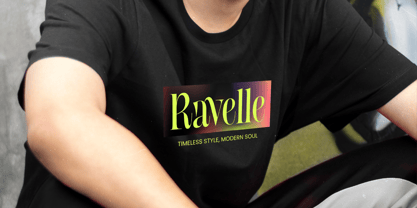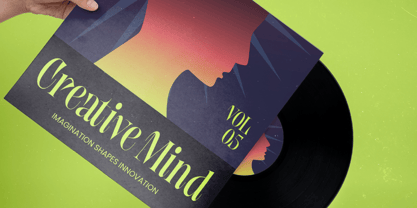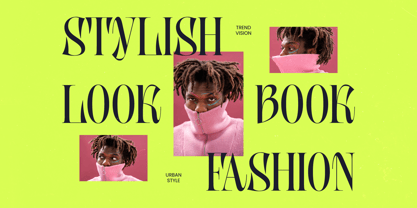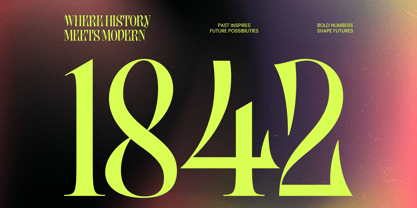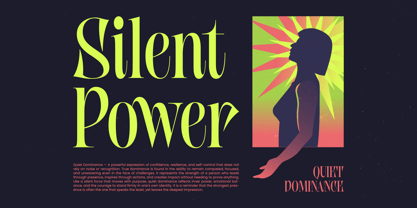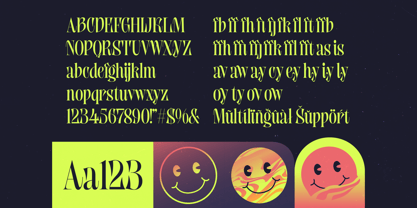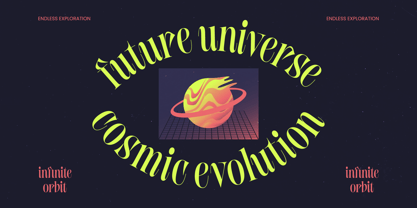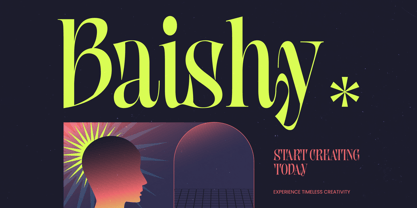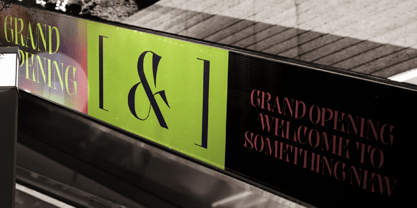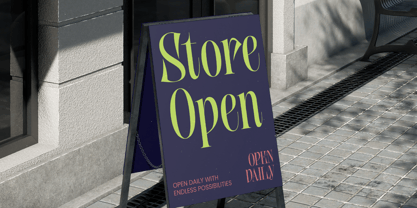
The Baishy Font Family was designed by Heru Utama Putra and published by Timelesstype Studio. Baishy contains 2 styles and family package options.
Elevate your creative vision with a typeface that embodies sophisticated modernism. Baishy - Modern Serif Display is a masterpiece of contemporary typography, blending high-contrast strokes with sharp, refined serifs to create a visual impact that is both timeless and trendy. Its unique balance of dramatic proportions offers a sense of high-end luxury and artistic flair, making it an essential asset for designers seeking to make a bold statement in every layout.
Baishy